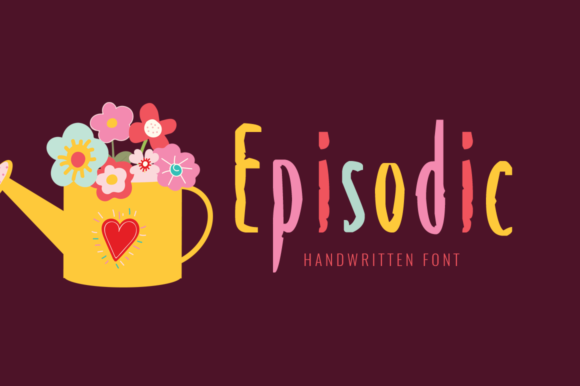
Get Ready to Spark Creativity with Episodic Font
Have you ever stared at a blank canvas, waiting for inspiration to strike? That moment of creative block is a familiar feeling for many designers. But what if you could tap into a font that’s as playful as it is professional? Introducing the Episodic Font, a charming display font designed to add a touch of whimsy to your next project.
This delightful font is perfect for designers looking to inject some personality into their work. With its unique feel and versatility, Episodic Font is an excellent choice for creating eye-catching headings, social media graphics, or even crafting custom typography for a brand. Whether you’re a seasoned pro or just starting out, this font is sure to inspire you to try something new and exciting.
Key Features of Episodic Font
- Font Family: Episodic is a typeface designed to evoke a sense of storytelling and nostalgia, with a unique blend of modern and vintage elements.
- Unique Characteristics: Episodic’s distinctive features include its irregular letterforms, subtle texture, and intricate details, which give it a hand-drawn feel.
Episodic Font Review
As a designer, I had the opportunity to work with the Episodic Font, and here’s my honest review:
- The unique blend of modern and vintage characteristics makes it perfect for projects that need a touch of nostalgia.
- The font is highly customizable, allowing users to adjust the weight, width, and even the subtle texture for a more personal touch.
- The font family includes multiple weights, making it suitable for a wide range of applications, from headings to body text.
- It’s highly legible, making it an excellent choice for projects where readability is crucial, such as documents or presentations.
- The font can be quite busy, which may not be ideal for projects where simplicity is key.
- The texture, although customizable, can sometimes feel overpowering, making the text difficult to read.
While the Episodic Font has its limitations, I believe it’s a great addition to any designer’s toolkit. Its unique blend of modern and vintage characteristics makes it perfect for projects that need a touch of nostalgia. With some careful customization, this font can be a real showstopper.